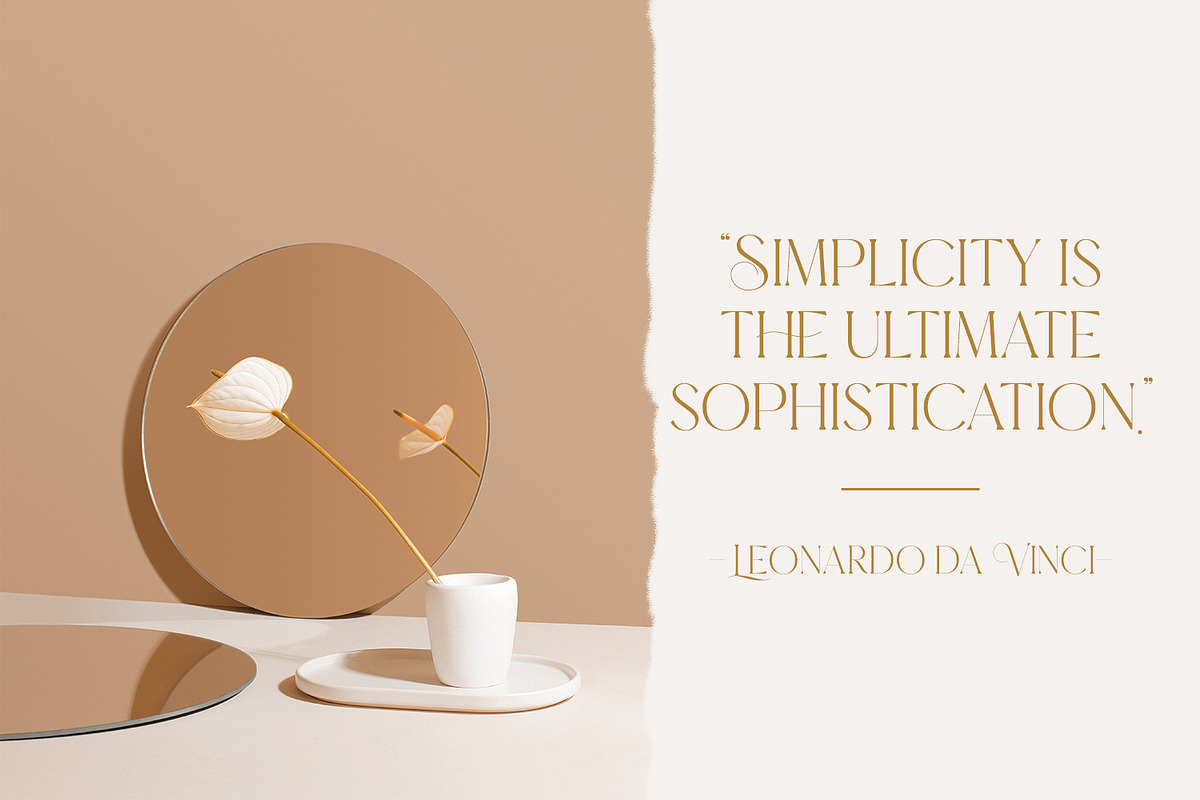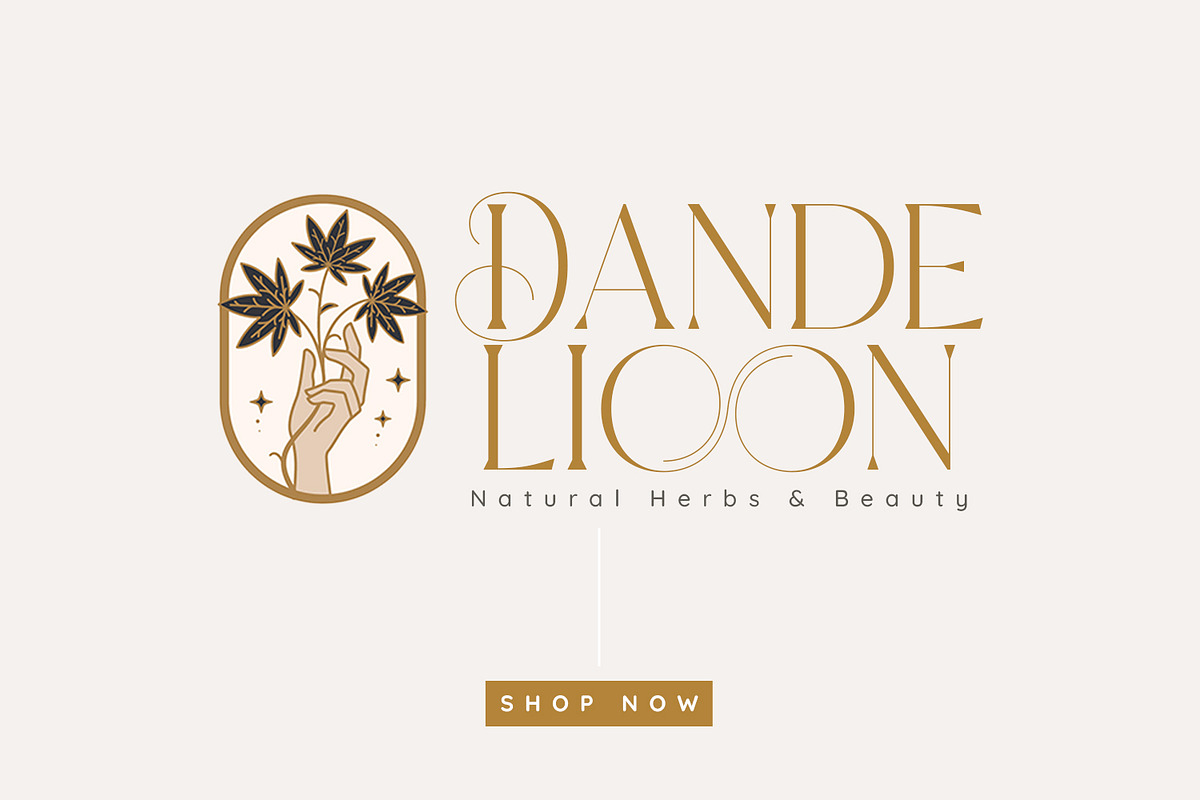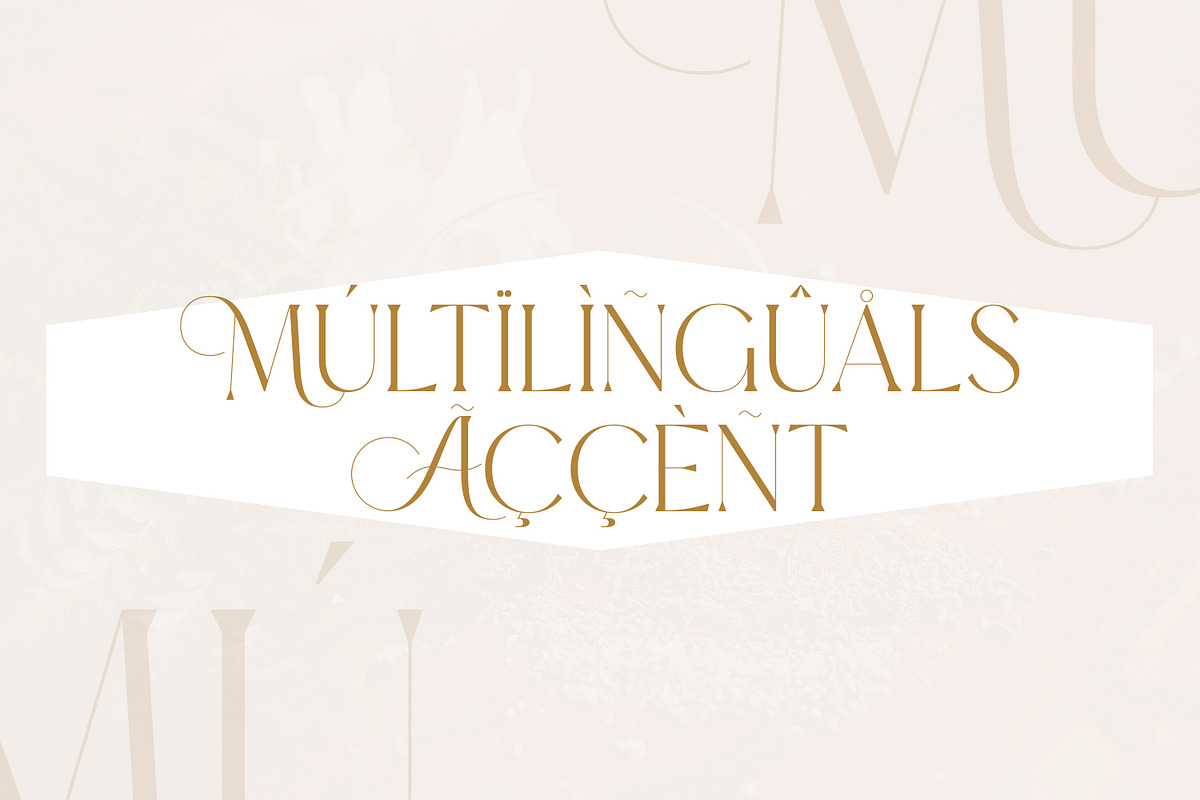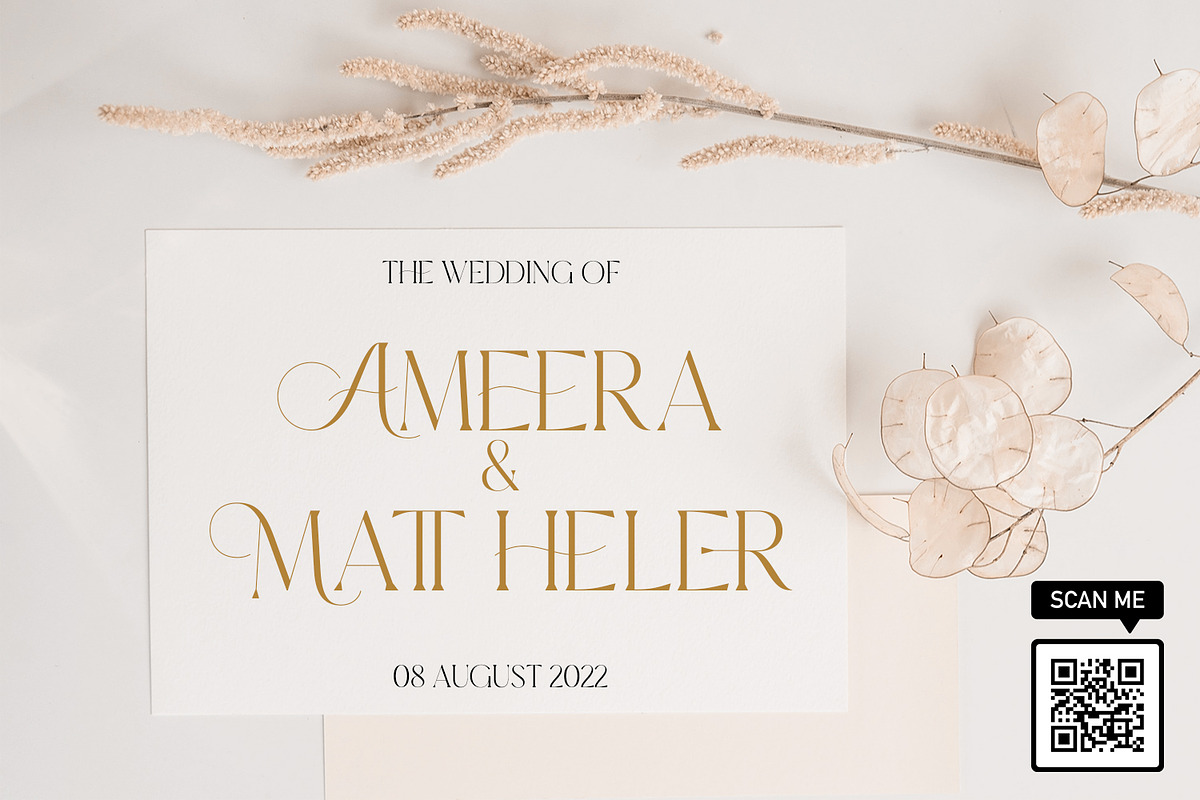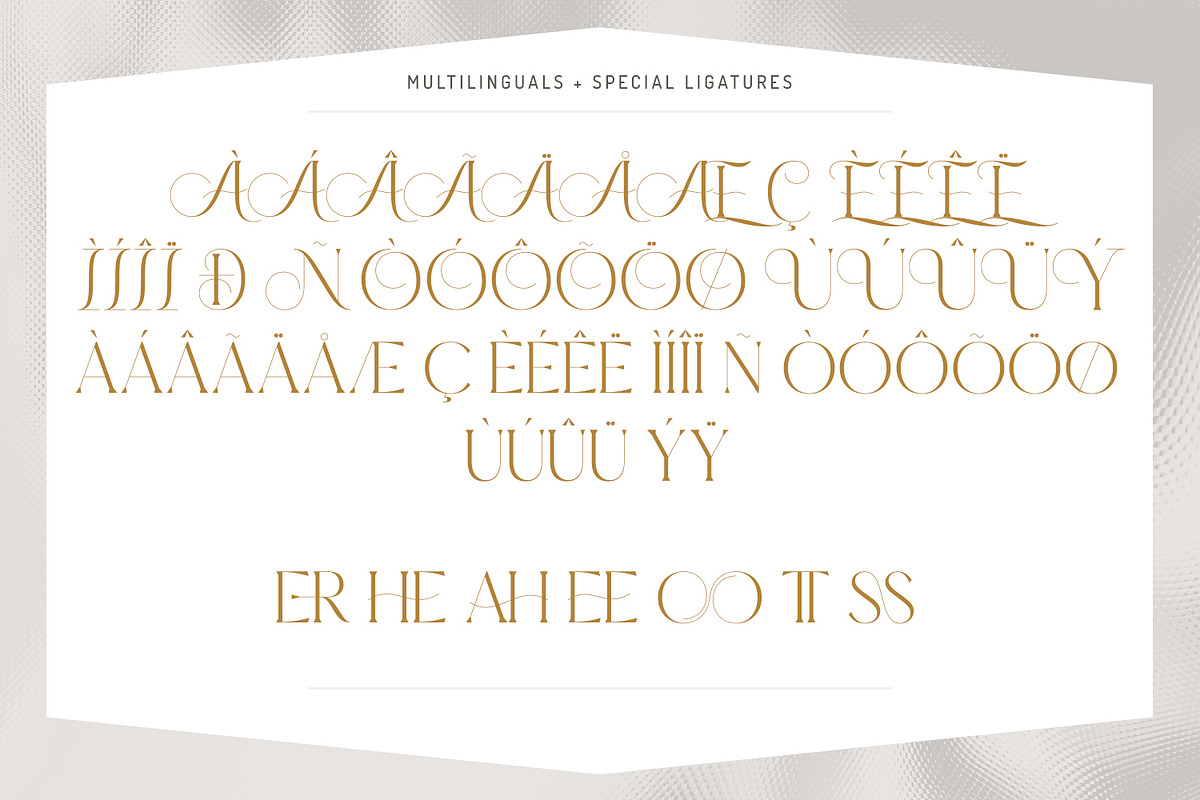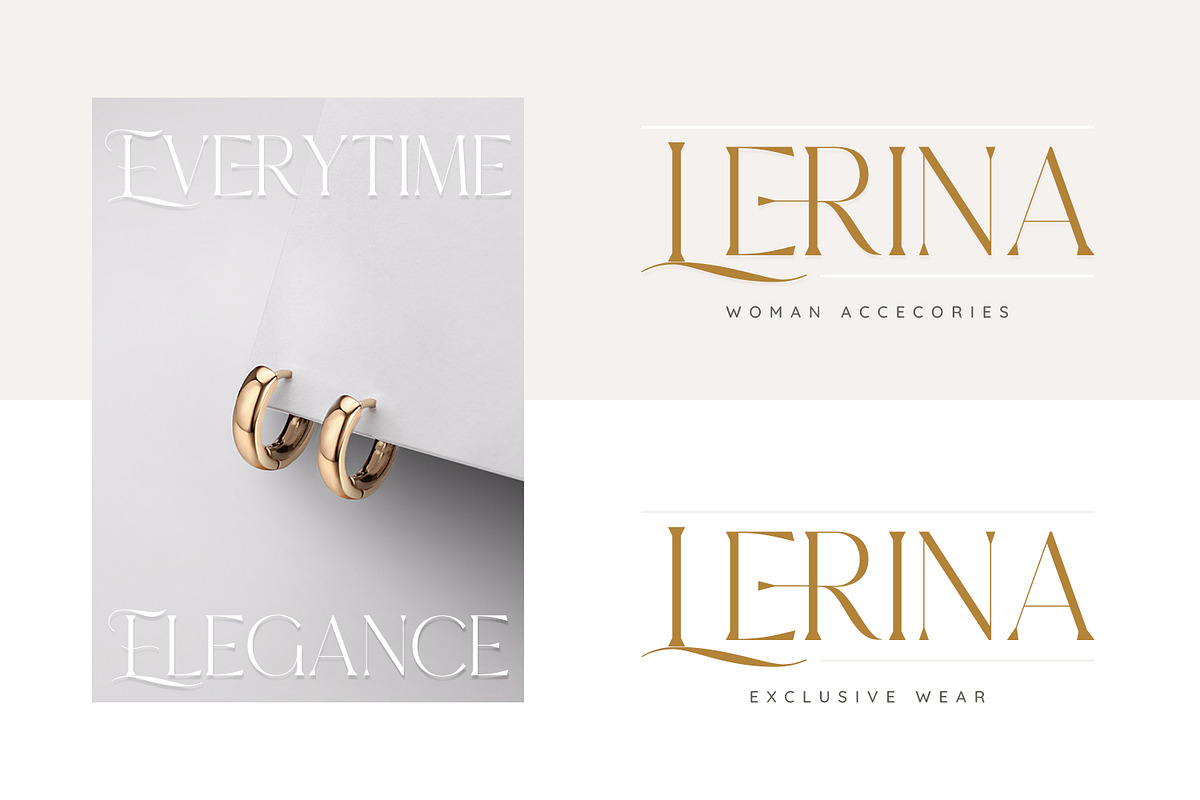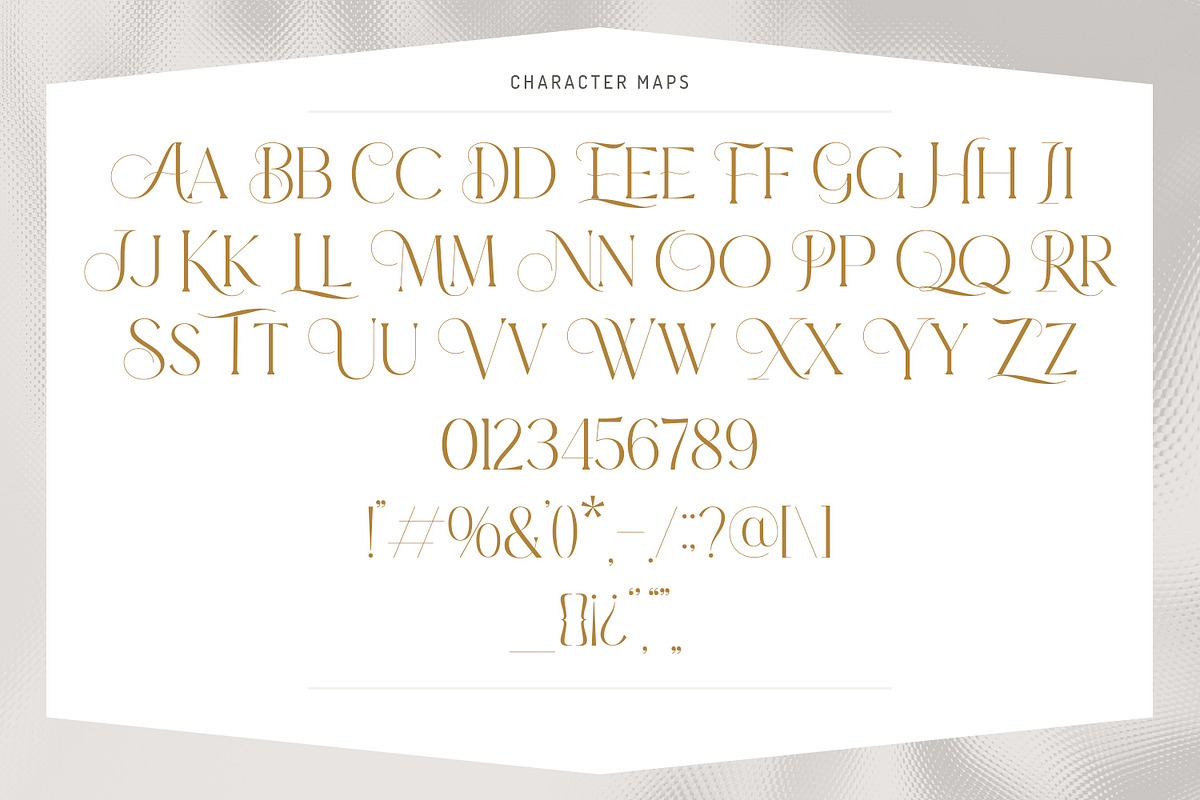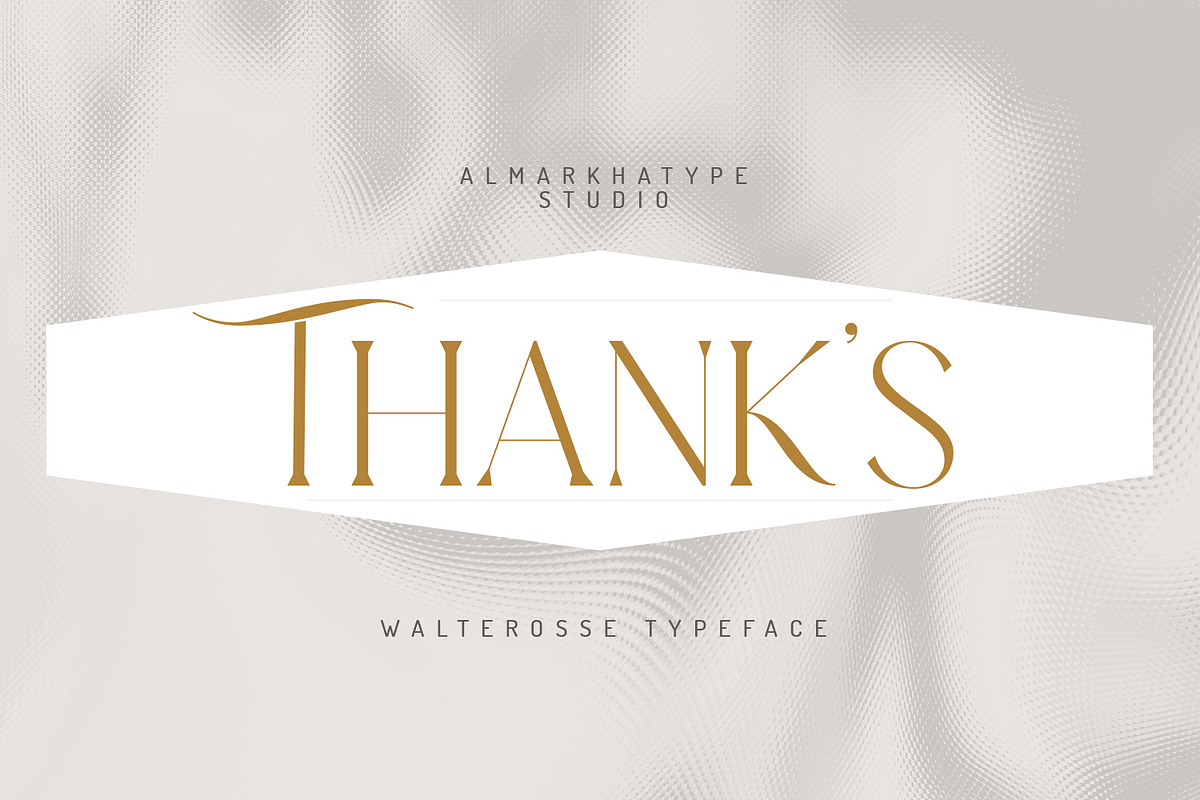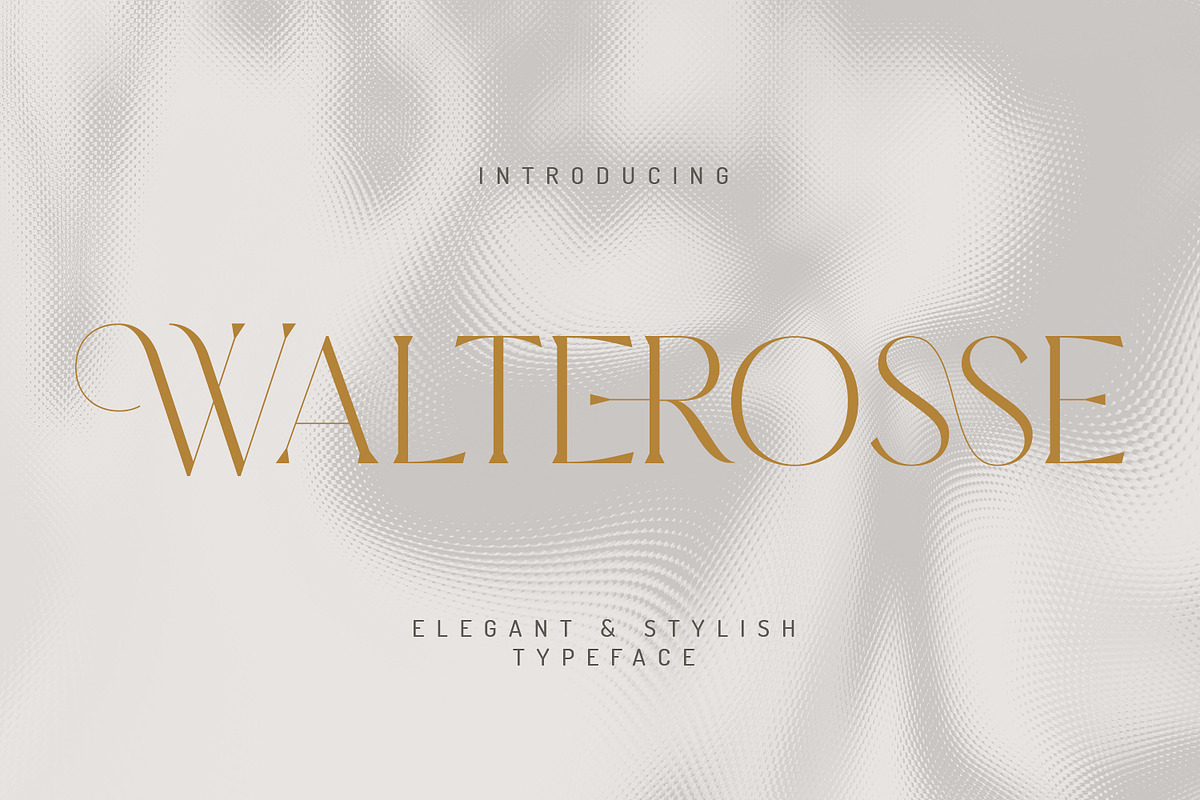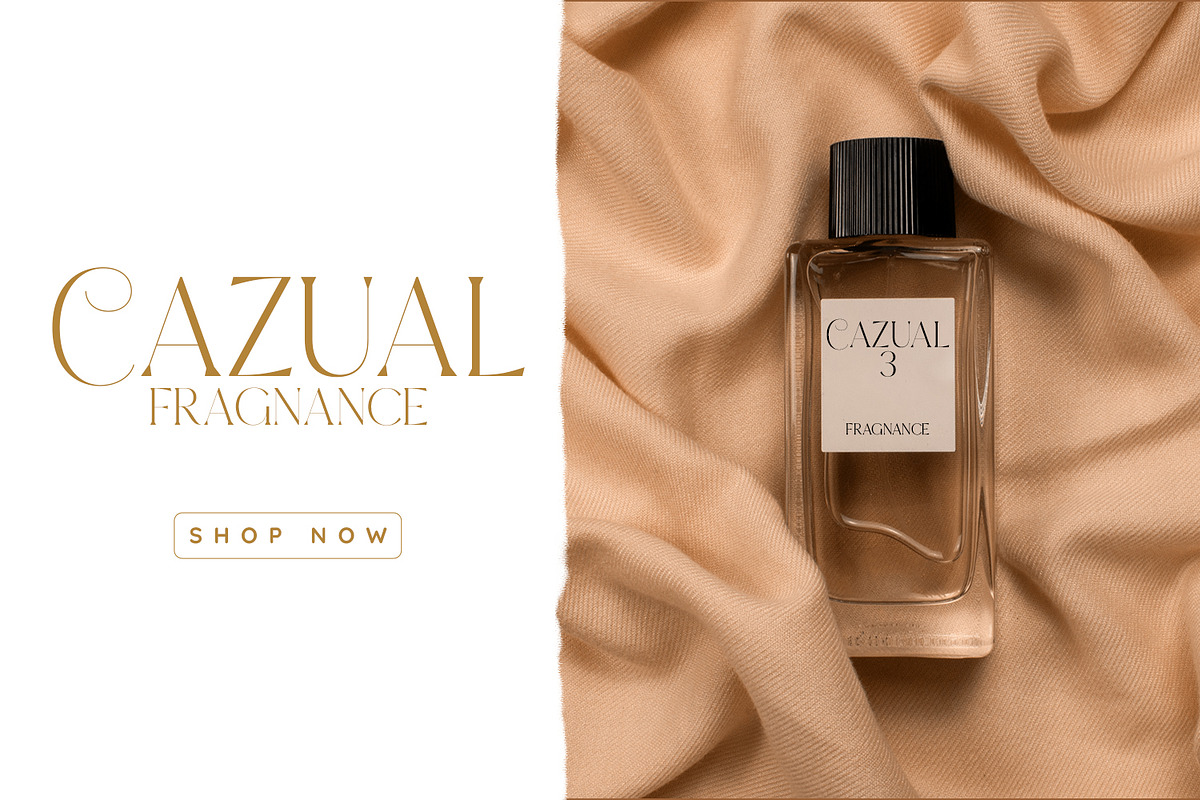
Walterosse - Elegant Display Serif
Hello Introducing, Walterosse - Elegant Stylish Display Serif is an unique font that uses ligatures to smoothly link letters. Perfect for adding a unique twist to word-mark logos, monograms or pull quotes. Walterosse has 7 cigatures can be turned off if required standard writing needs. What's Included :